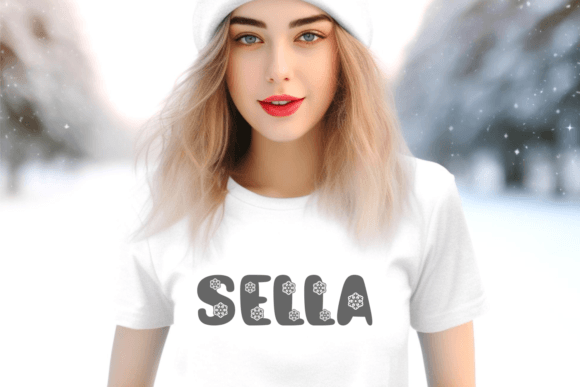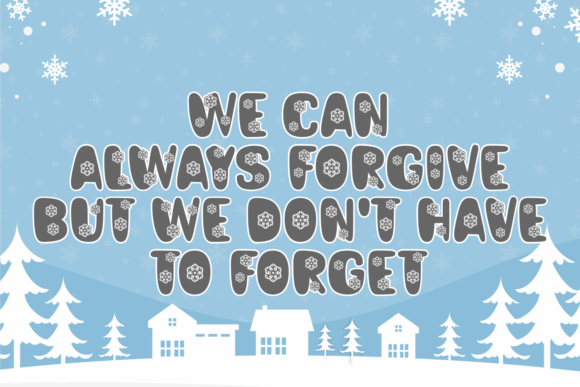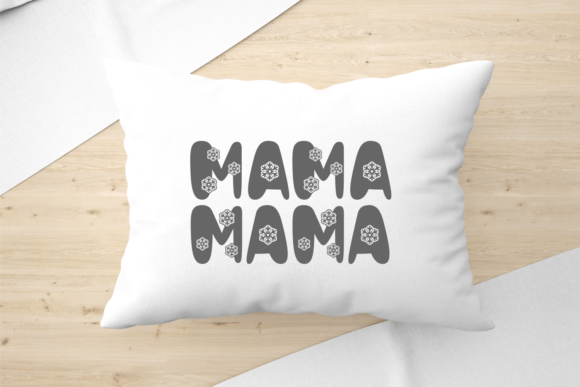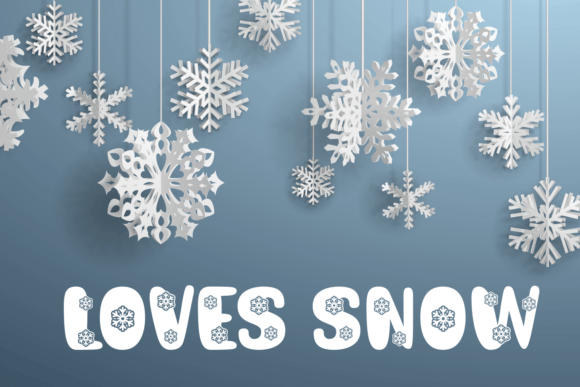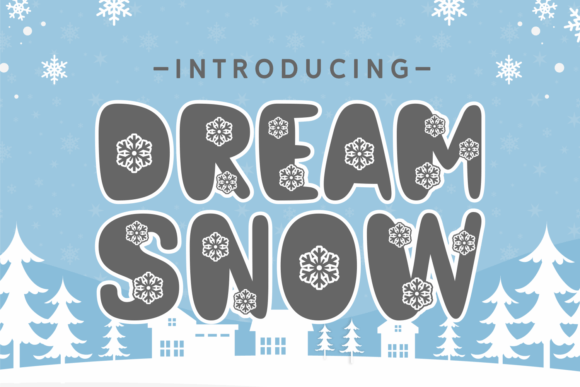
Dream Snow Font: Add a Touch of Winter Charm to Your Designs
As the winter season approaches, designers and crafters are on the lookout for fonts that can add a touch of festive charm to their projects. If you’re looking for a font that can bring a whimsical and cozy feel to your designs, look no further than the Dream Snow Font. This delightful decorative font is adorned with adorable snowflakes on each letter, making it perfect for festive projects.
What is Dream Snow Font?
Dream Snow Font is a unique and playful font that is designed to add a touch of winter magic to your text. Each letter is carefully crafted with intricate snowflakes that give the font a delicate and whimsical feel. The font is perfect for designers and crafters who want to create festive and seasonal projects that stand out from the crowd.
Features of Dream Snow Font
The Dream Snow Font has several features that make it a great choice for designers and crafters. Some of its key features include:
- Adorable snowflakes: Each letter in the font is adorned with adorable snowflakes that add a touch of winter charm to your text.
- Playful design: The font has a playful design that brings a whimsical and cozy feel to any creative endeavor.
- Festive and seasonal: The font is perfect for festive and seasonal projects, such as Christmas cards, winter-themed invitations, and holiday-themed crafts.
Uses of Dream Snow Font
The Dream Snow Font is a versatile font that can be used for a variety of projects. Some of the ways you can use this font include:
- Christmas cards and invitations: Add a touch of winter charm to your Christmas cards and invitations with this festive font.
- Winter-themed crafts: Use the font to create winter-themed crafts, such as snowflake decorations, winter-themed banners, and festive garlands.
- Holiday-themed social media graphics: Add a touch of festive charm to your social media graphics with this playful font.
- Festive packaging: Use the font to create festive packaging for your products, such as holiday-themed gift boxes and festive wrapping paper.
Tips for Using Dream Snow Font
Here are some tips for using the Dream Snow Font:
- Use it sparingly: While the font is festive and fun, it can be overwhelming if used too much. Use it sparingly to add a touch of winter charm to your designs.
- Pair it with a simple font: Pair the font with a simple font to create contrast and make your designs more readable.
- Experiment with colors: Experiment with different colors to find the perfect combination that matches your brand or design.
The Dream Snow Font is a delightful decorative font that adds a touch of winter charm to your text. With its playful design and adorable snowflakes, it’s perfect for festive projects. Whether you’re a designer or crafter, this font is sure to bring a whimsical and cozy feel to any creative endeavor. So why not give it a try and let your words sparkle with this cute and seasonal font choice?